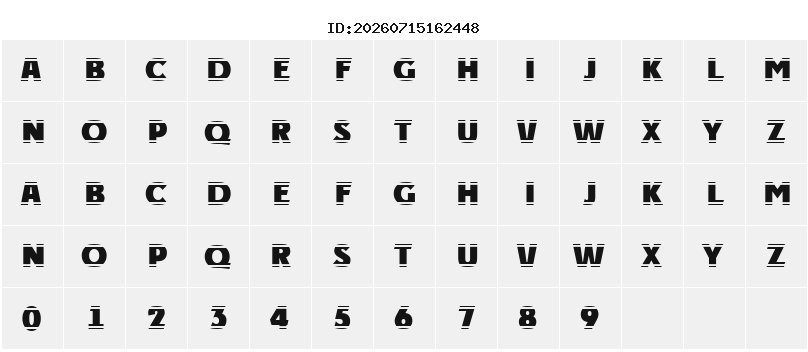
a_PlakatTitulHlStr Preview
• Font Name: a_PlakatTitulHlStr
• Font Style: ExtraBold
• Full Font Name: a_PlakatTitulHlStr ExtraBold
About a_PlakatTitulHlStr.ttf
a_PlakatTitulHlStr.ttf is a modern, elegant sans-serif font designed for ultimate readability and visual harmony. Perfect for branding, headlines, web design, and print materials.